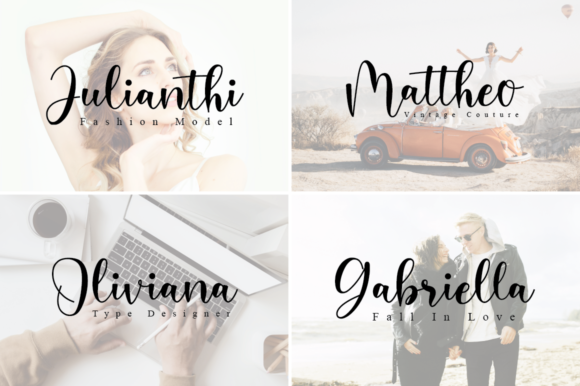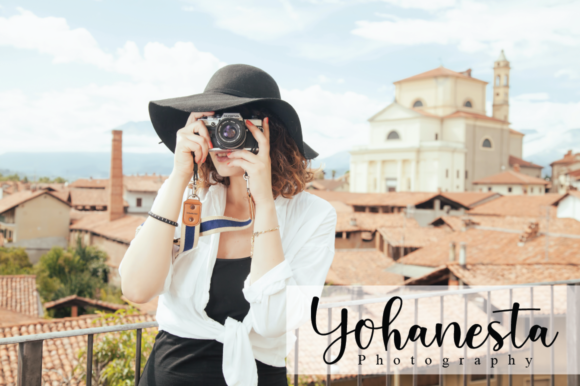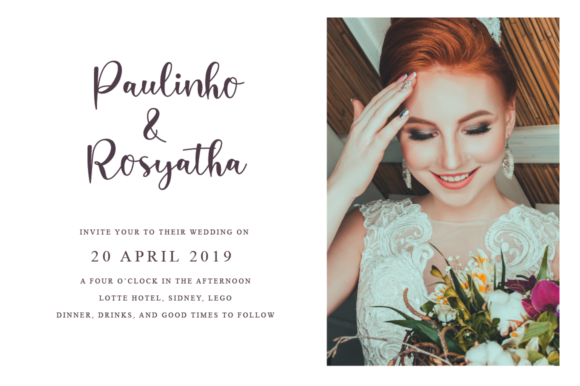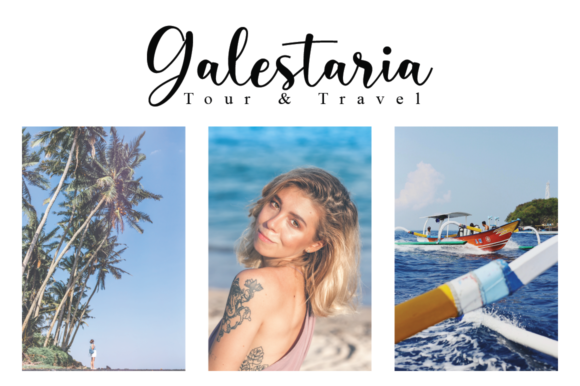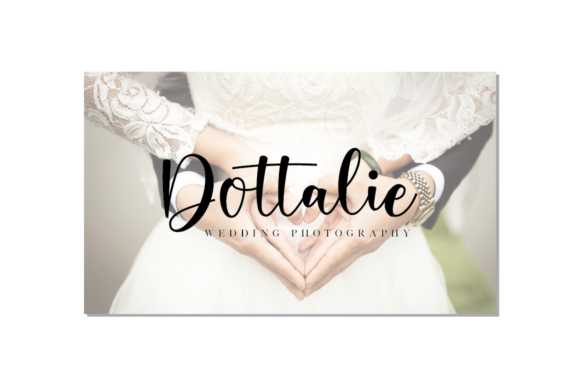
Discover the Elegance of Charlotte Font: Elevate Your Designs with Style
Are you on the hunt for a font that exudes class, elegance, and modernity? Look no further than the stunning Charlotte font. This beautiful script font has been making waves in the design community, and for good reason. Its versatility and aesthetic appeal make it the perfect choice for a wide range of projects, from logos and branding to invitations, stationery, wedding designs, social media posts, and beyond.
The Characteristics of Charlotte Font
So, what sets Charlotte font apart from other fonts? Here are a few key characteristics that make it a standout:
- Classy and Elegant: Charlotte font boasts a sophisticated, high-end look that’s perfect for designs that require a touch of luxury.
- Modern Twist: Despite its classic feel, Charlotte font also has a modern edge that makes it suitable for contemporary designs.
- Script Style: As a script font, Charlotte features flowing connections between letters, adding a level of elegance and fluidity to your text.
- Versatile: Whether you’re designing a logo, creating wedding stationery, or crafting social media posts, Charlotte font adapts seamlessly to any project.
Uses of Charlotte Font
The versatility of Charlotte font is one of its most appealing qualities. Here are some of the many ways you can use this beautiful font:
Logos and Branding
Create a lasting impression with a logo that exudes elegance and sophistication. Charlotte font is perfect for businesses that want to convey a sense of luxury and refinement.
Invitations and Stationery3>
Add a touch of class to your invitations, greeting cards, and stationery with Charlotte font. Its elegant look is sure to impress.
Wedding Designs
Make your wedding designs truly special with Charlotte font. It’s perfect for wedding invitations, programs, and other stationery.
Social Media Posts
Elevate your social media presence with stylish posts that showcase your brand’s personality. Charlotte font is sure to make your content stand out.
Why Designers and Crafters Love Charlotte Font
So, why has Charlotte font become a favorite among designers and crafters? Here are a few reasons:
- Easy to Read: Despite its elegant and cursive nature, Charlotte font remains highly legible, making it perfect for both headings and body text.
- Highly Customizable: With a range of weights and styles available, you can tailor Charlotte font to suit your design needs.
- Unique and Memorable: Charlotte font’s distinctive look helps your designs stand out in a crowded marketplace.
Tips for Using Charlotte Font Effectively
To get the most out of Charlotte font, here are a few tips to keep in mind:
- Pair with Complementary Fonts: Combine Charlotte font with sans-serif fonts for a striking contrast that adds visual interest to your designs.
- Experiment with Colors: While Charlotte font looks stunning in black, don’t be afraid to experiment with different colors to add an extra layer of personality to your designs.
- Pay Attention to Spacing: To maintain readability, ensure that your text has sufficient spacing, especially when using Charlotte font for body text.
Charlotte font is a game-changer for designers and crafters looking to add a touch of elegance and sophistication to their projects. With its classy, modern look and versatility, it’s the perfect choice for a wide range of applications. Whether you’re creating logos, invitations, wedding designs, or social media posts, Charlotte font is sure to elevate your designs and leave a lasting impression.